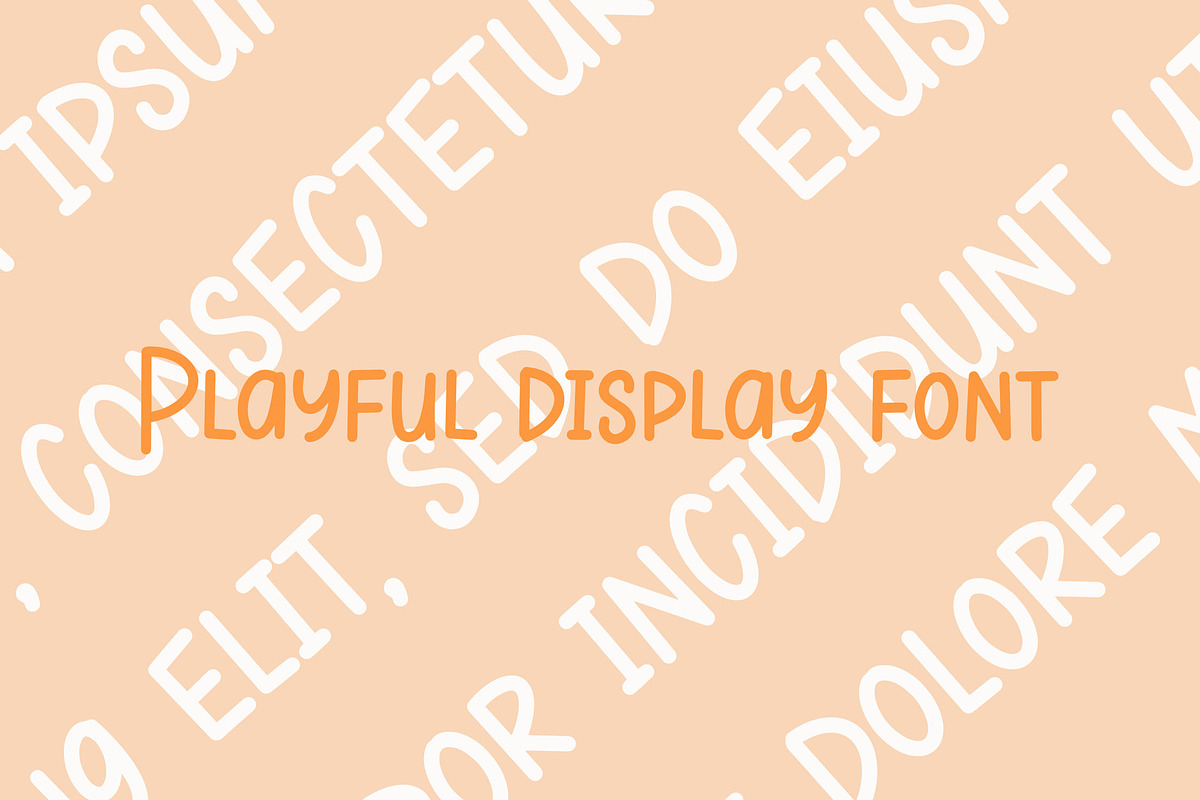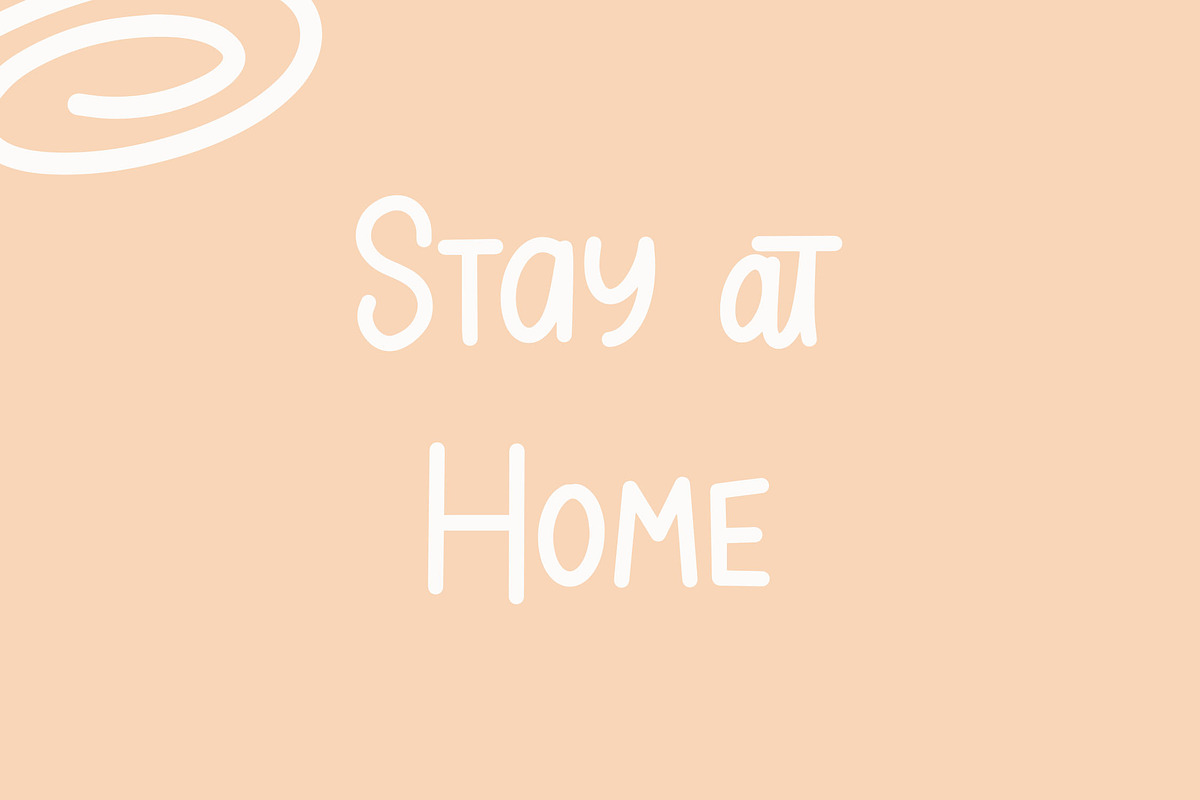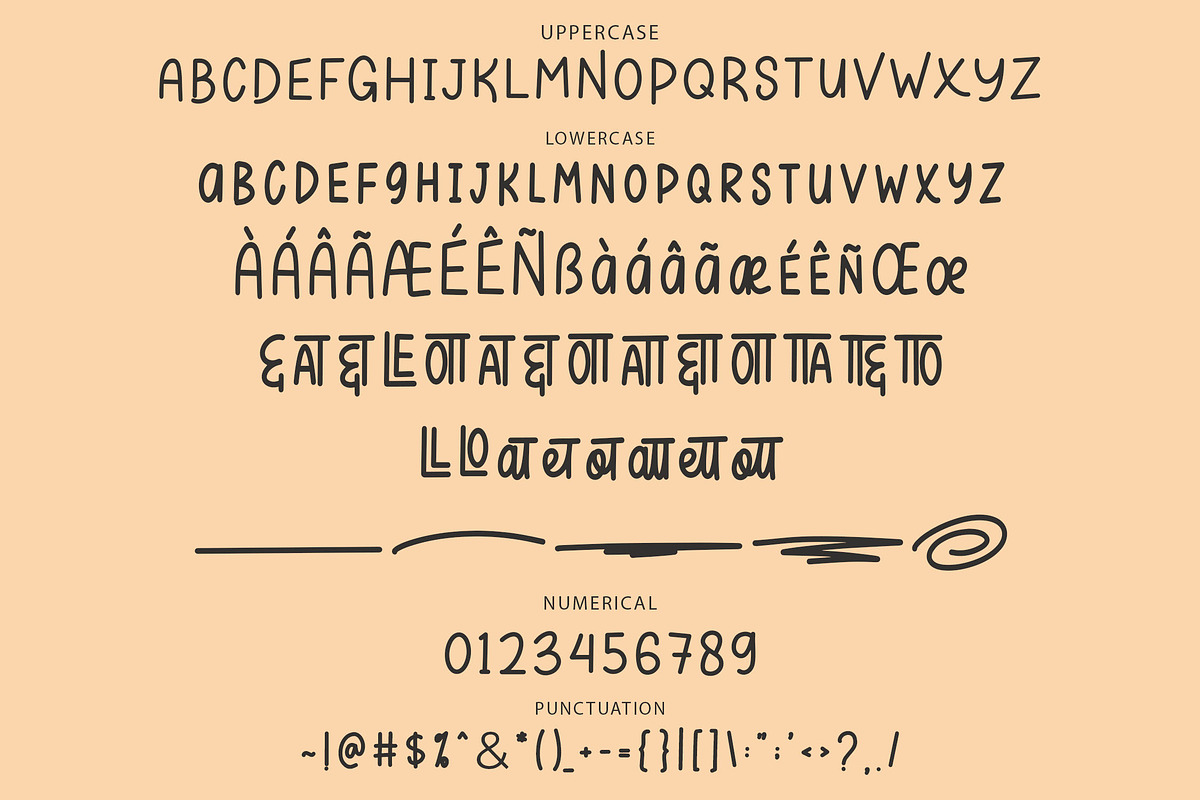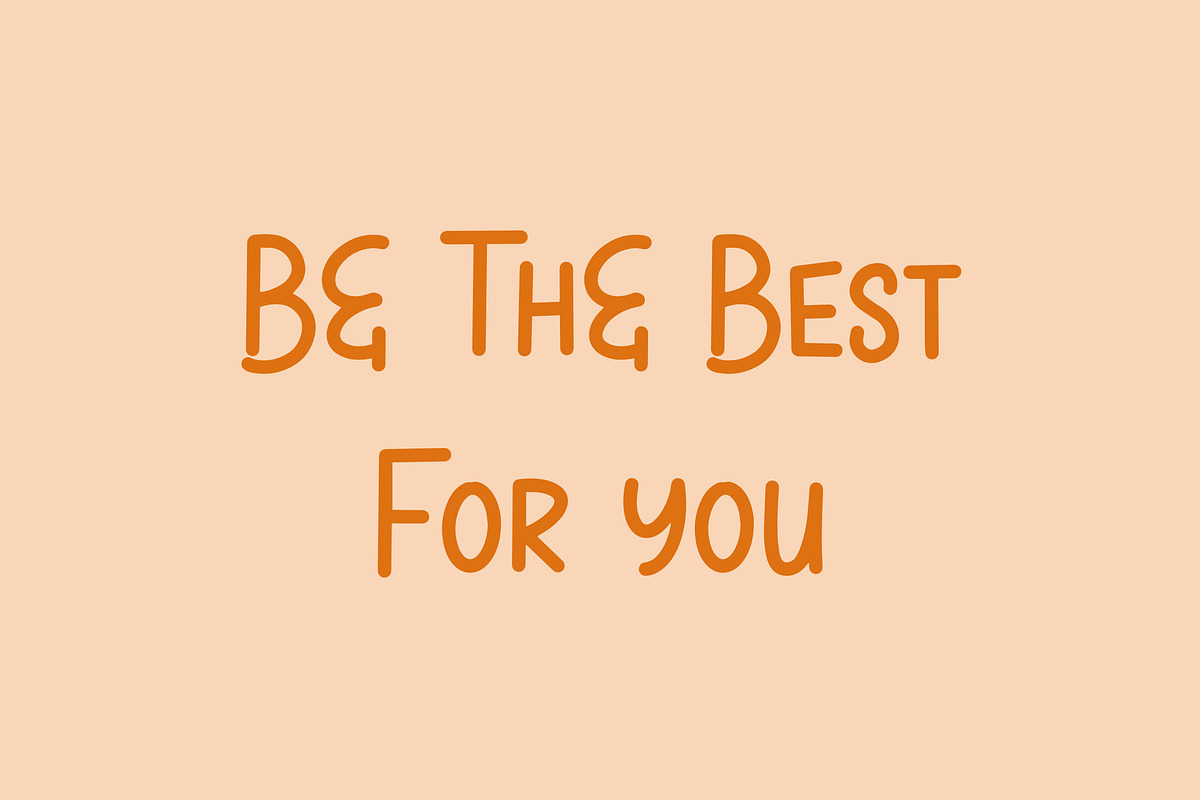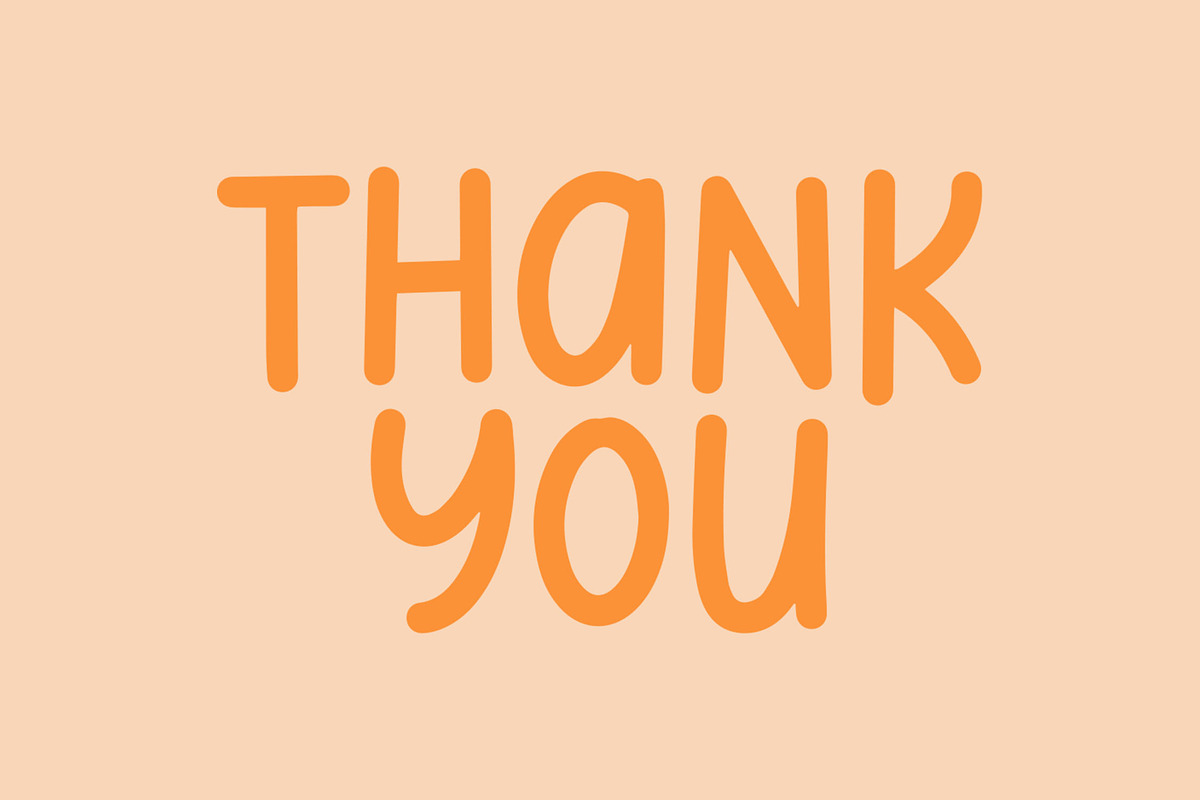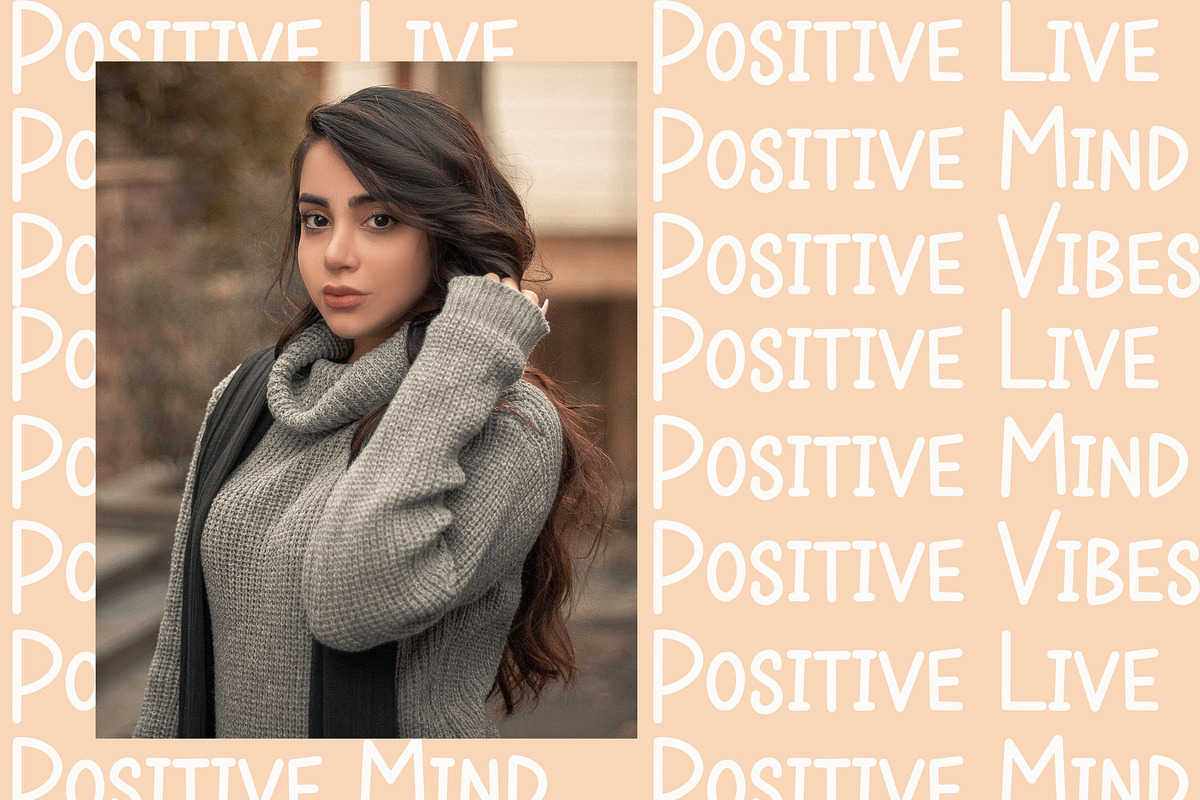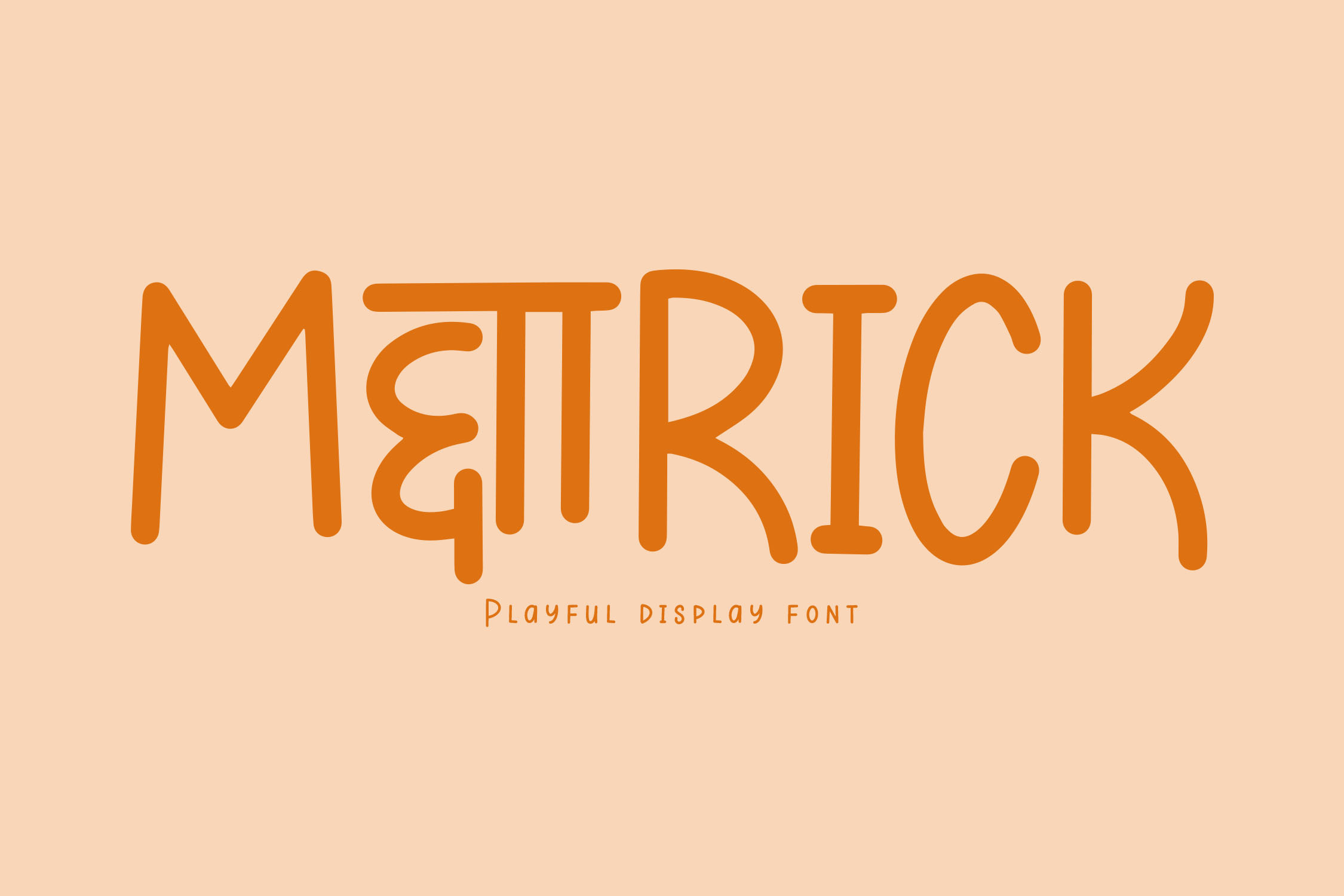
METTRICK Playful Font
METTRICK Handwriting Font
Introducing METTRICK, a playful handwriting font with uniquely crafted characters that bring fun and creativity to your projects. Whether you're designing product visuals or working on creative graphics, METTRICK adds a charming and attractive touch that stands out.
- Ligatures for seamless letter connections
- Stylistic Alternates for added creativity
- Decorative Swashes to enhance your text
- Multilingual Support for global accessibility
Bring playful creativity to your designs with METTRICK's unique handwriting style!